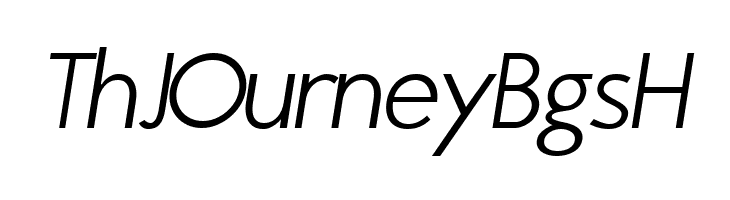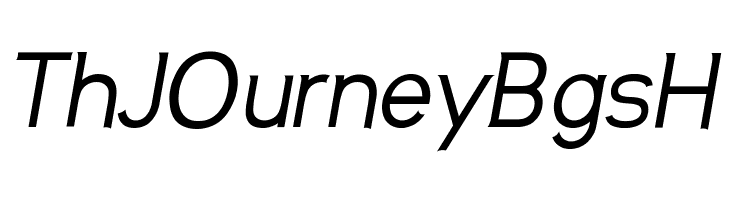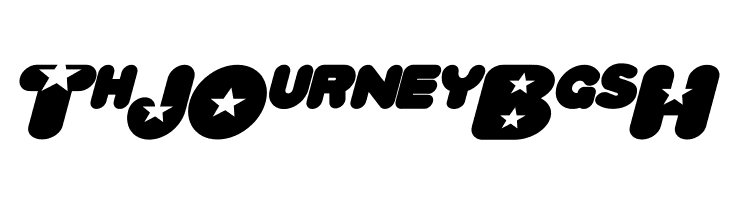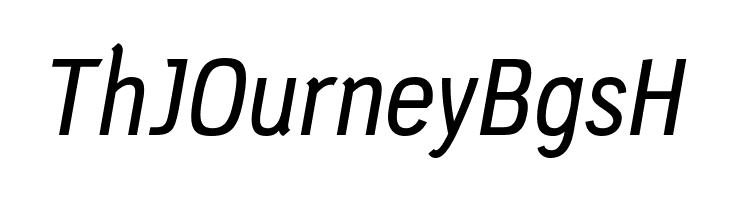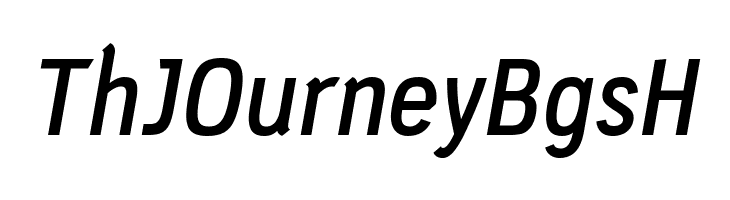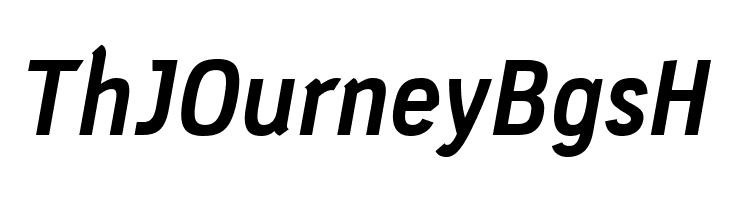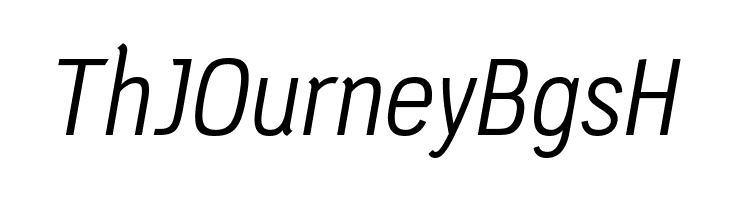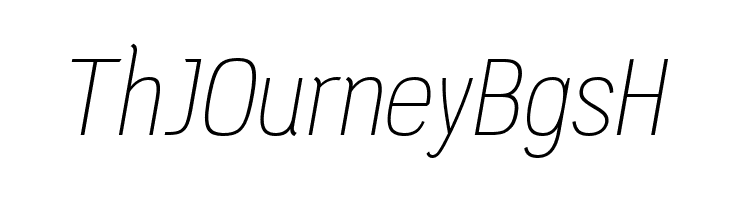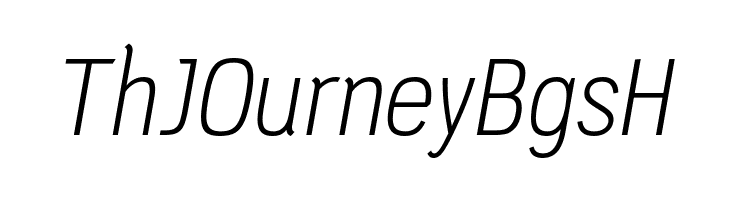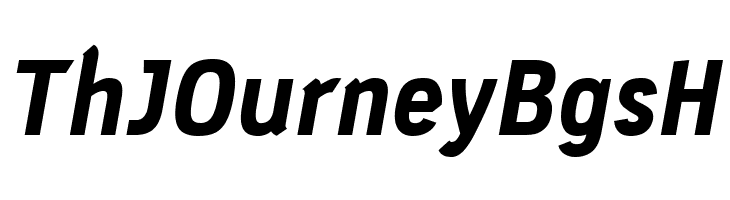
A sleek, modern oblique font with a light weight and clean, minimalist design.
A modern, oblique sans-serif font with a sleek and dynamic appearance.
A bold, playful font with star motifs and an oblique style.
A modern sans-serif font with an oblique slant, offering a sleek and dynamic look.
A modern, semi-bold oblique font with sleek, dynamic characters.
A bold, oblique font with a modern and dynamic style.
A modern, oblique sans-serif font with clean lines and a dynamic slant.
A sleek, thin, and oblique font with a modern and minimalistic design.
A sleek, light, and oblique font with a modern and elegant style.
A bold, oblique font with a modern and dynamic style.